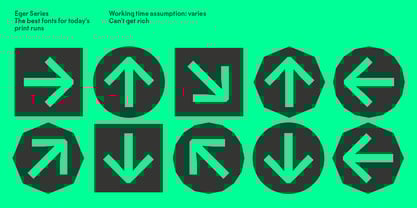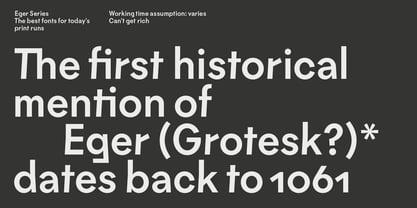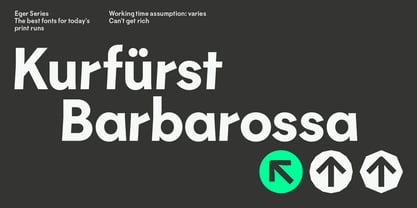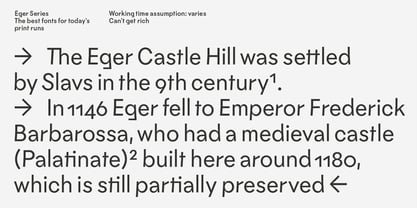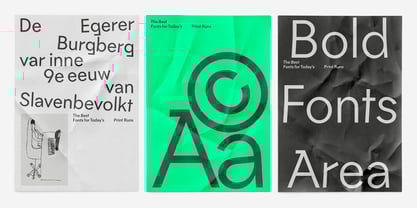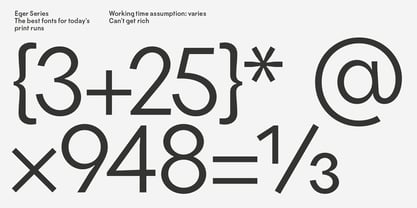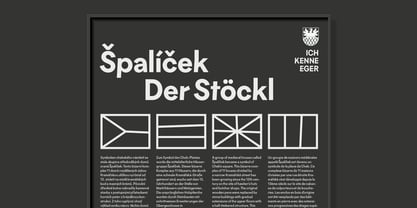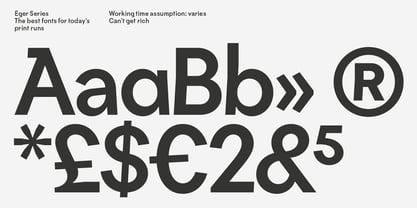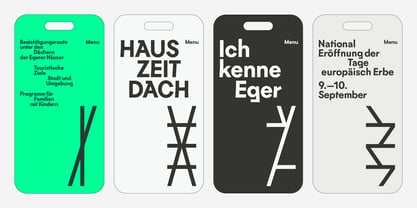
Eger Grotesk
The Eger Grotesk Font Family was designed by Roman Cernohous and published by Roman Cernohous Typotime. Eger Grotesk contains 4 styles and family package options. More about this family
Is it possible to transfer the atmosphere of the city to the character of the grotesque alphabet? Eger Grotesk was created as a concept for a study of the visual style of a quirky West Bohemian town and is inspired by the typical shapes of local houses. The principle of counter-inclined strokes in a rational rhythm and robust geometric proportions creates a characteristically playful lively text. Eger Grotesk contains 4 styles, a stylistic set with an alternate letter "a", in addition to the basic ones, also tabular and oldstyle figures and arrow sets in various shapes.